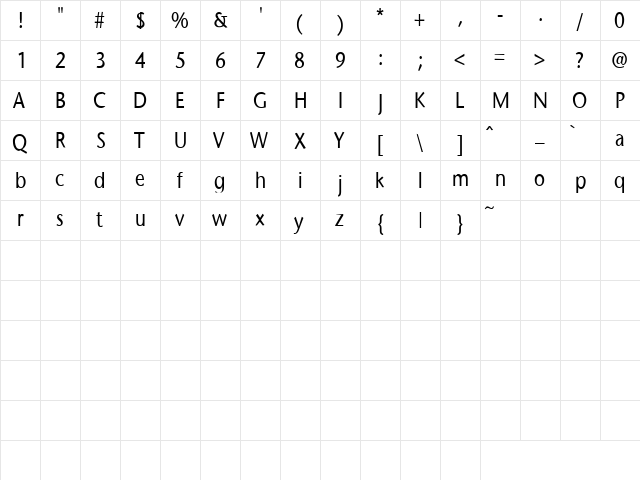
Four Sticks 5 Regular
Design Context for Four Sticks 5 Typeface
Four Sticks 5 is a composed and adaptable typeface that performs quietly and consistently across a wide range of design contexts.